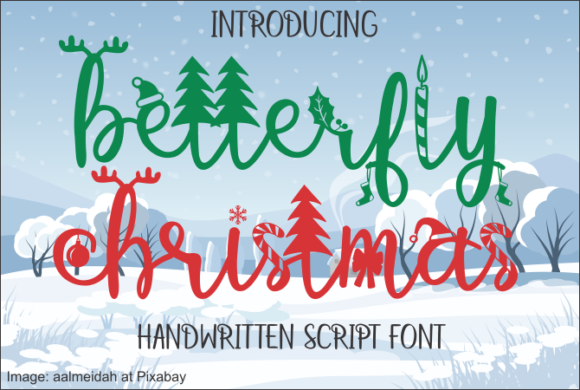
Welcome to the world of Betterfly Christmas Font, a festive delight for your creative endeavors! This decorative font, crafted by the talented Jaime Rangel Castro, captures the magic and cheer of the Christmas season like no other. Let your designs sparkle with the spirit of the holidays as you adorn them with this enchanting font.
Betterfly Christmas Font is more than just a collection of letters; it's a gateway to a whimsical world where imagination reigns supreme. Its playful and charming characters, reminiscent of the intricate patterns found on Christmas decorations, will transform your designs into works of art. Embrace the festive vibes and create captivating visuals that evoke the warmth and joy of the holiday season.
With Betterfly Christmas Font, you'll have a secret weapon in your design arsenal. Its versatility knows no bounds, making it the perfect choice for everything from jolly Christmas greeting cards to eye-catching social media posts. Spread the holiday cheer through your creative projects and leave a lasting impression on your audience.
Don't miss out on this opportunity to add a touch of Christmas magic to your designs. Betterfly Christmas Font is your passport to a world of enchanting creations. Dive into the festive spirit and let your imagination soar as you craft designs that radiate holiday cheer.